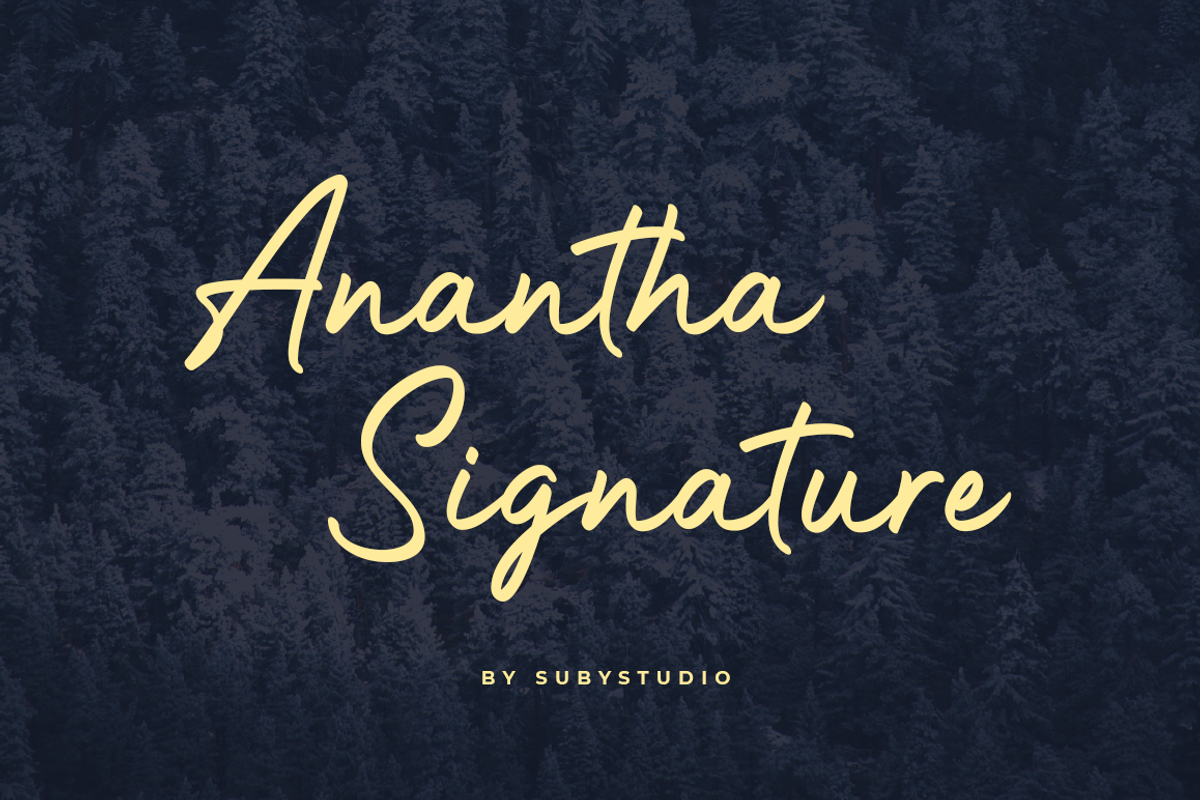
Anantha Signature Font Free Download is an elegant and sophisticated script typeface designed to add a personal and artistic touch to your designs. Featuring smooth, flowing curves and stylish letterforms, this font is perfect for creating logos, branding, invitations, social media content, and personal stationery. Its signature-style design makes it ideal for high-end brands, weddings, and creative projects. Whether you're designing a chic logo, crafting a luxury event invitation, or developing a custom brand identity, Anantha Signature Font Free Download lets you explore its unique, handwritten style in personal projects before purchasing a commercial license. Add a touch of elegance and individuality to your designs with this beautifully crafted signature font.